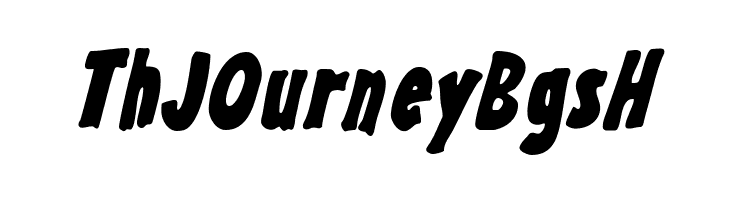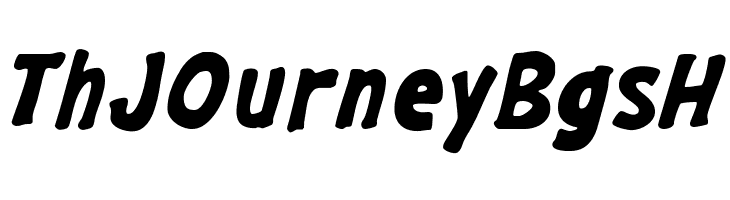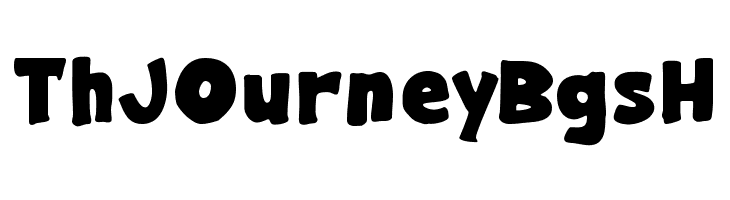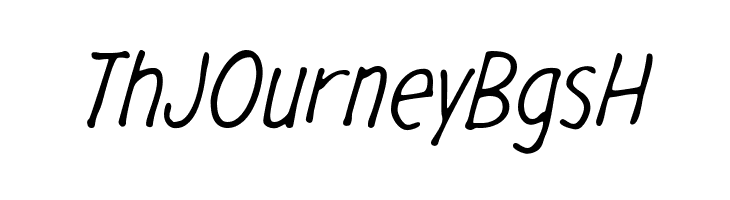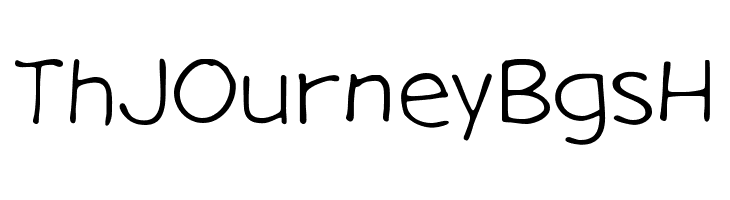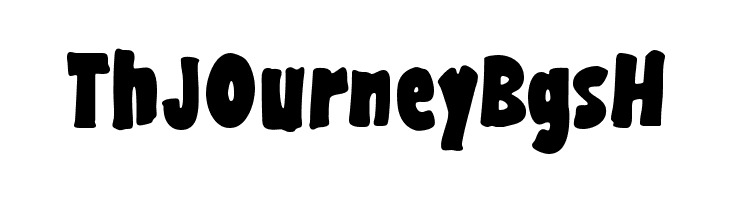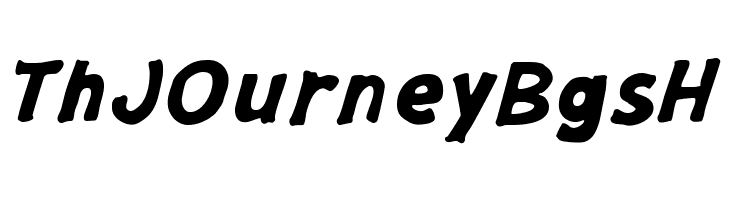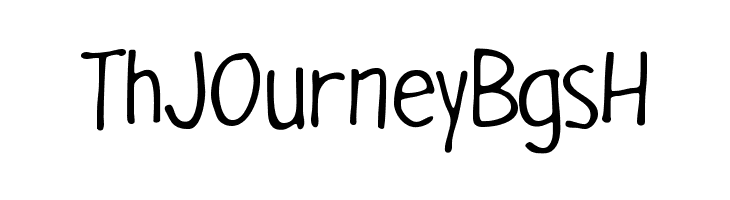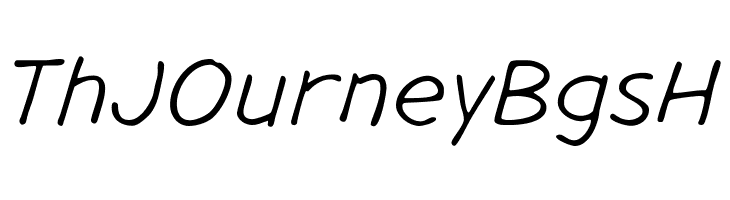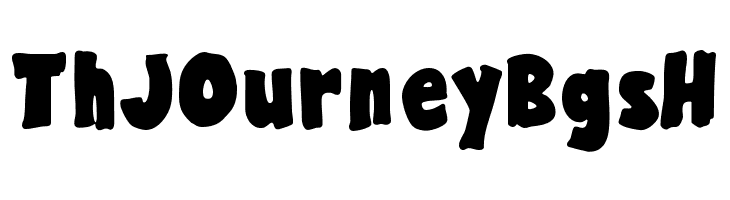
A bold, playful, and hand-drawn style font with rounded characters.
A bold, italicized, and playful font with rounded strokes and a dynamic style.
A casual, handwritten-style font with a slight slant and smooth, flowing lines.
A playful, informal handwritten font with irregular strokes and a casual appearance.
A bold, playful font with rounded, slightly irregular shapes.
A bold, italic font with a playful and dynamic style.
A casual, handwritten-style font with a slight slant and smooth, consistent strokes.
A playful, hand-drawn font with rounded edges and a whimsical style.
A bold, playful font with rounded, cartoonish characters and a hand-drawn feel.
A bold, italicized font with a playful and dynamic style.